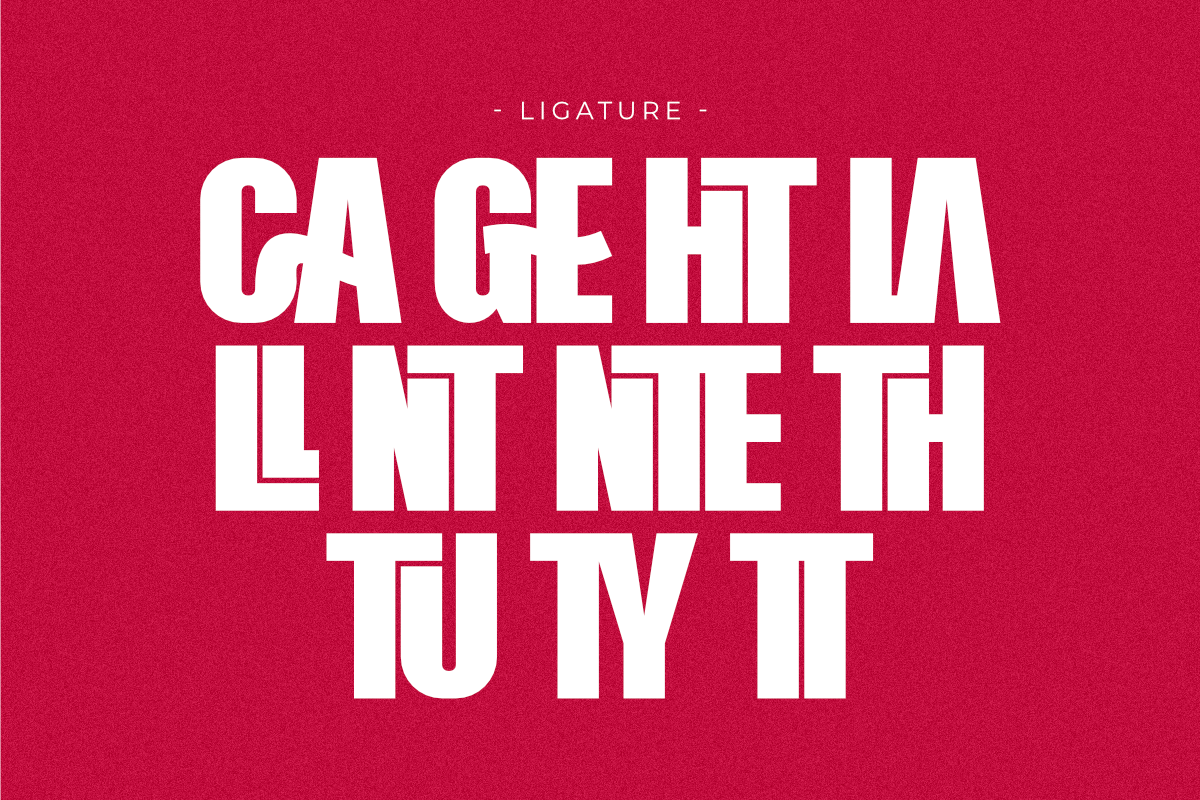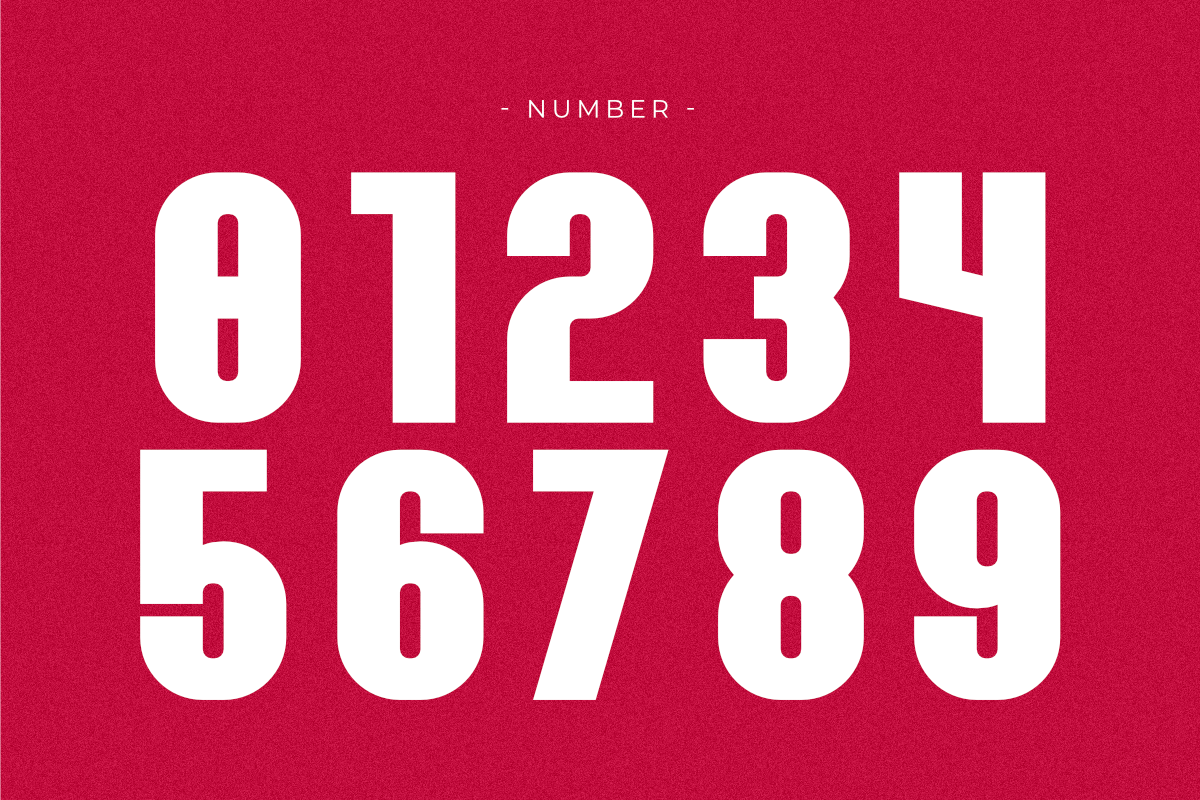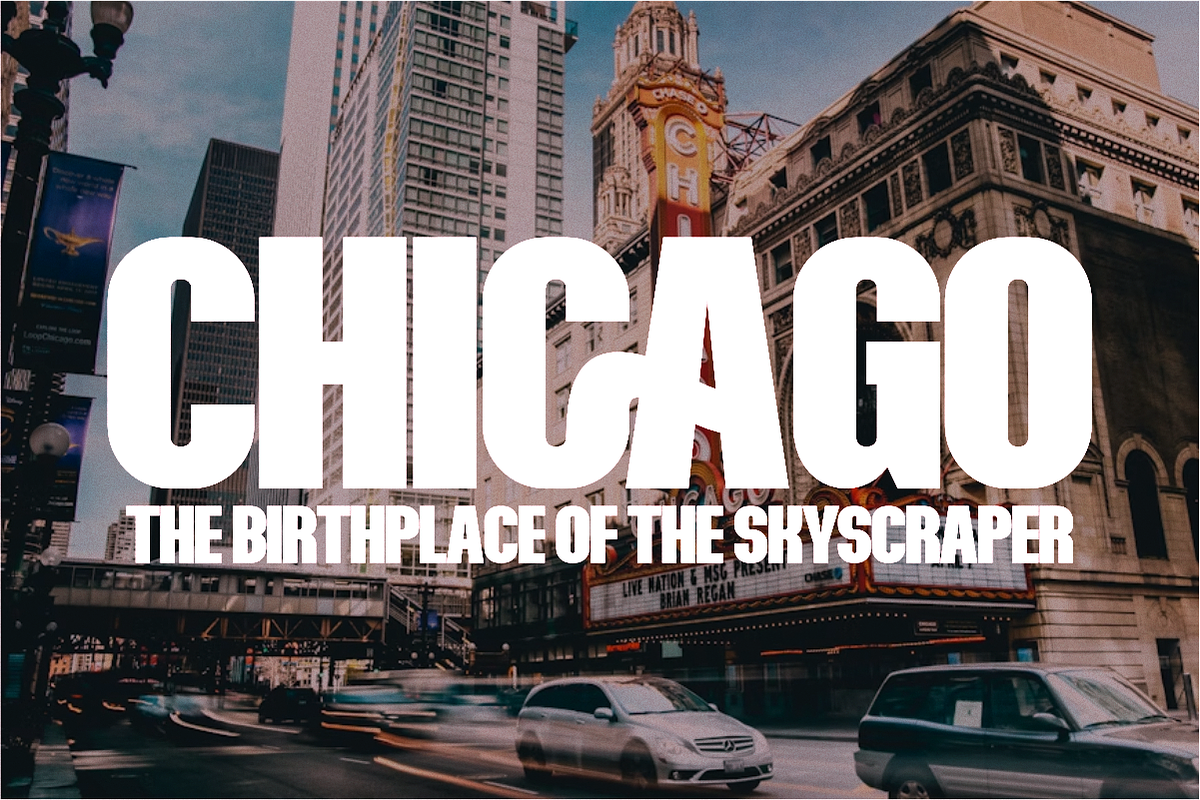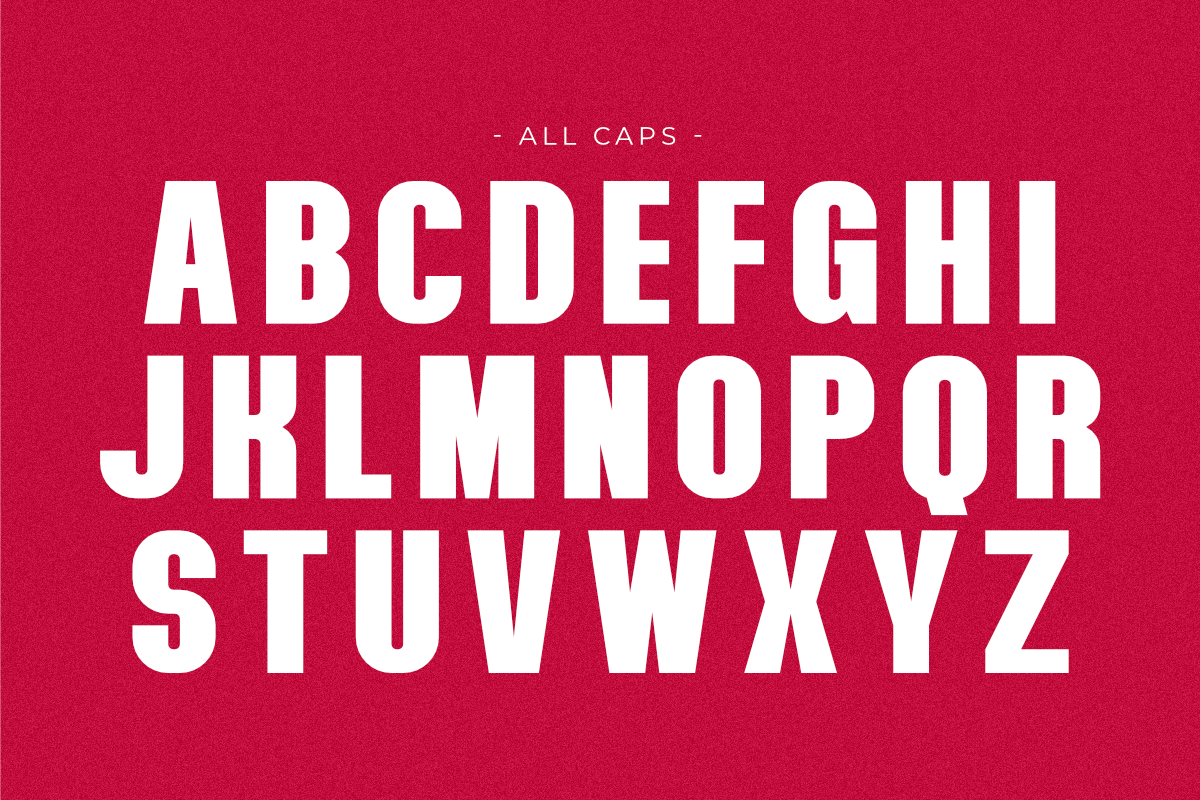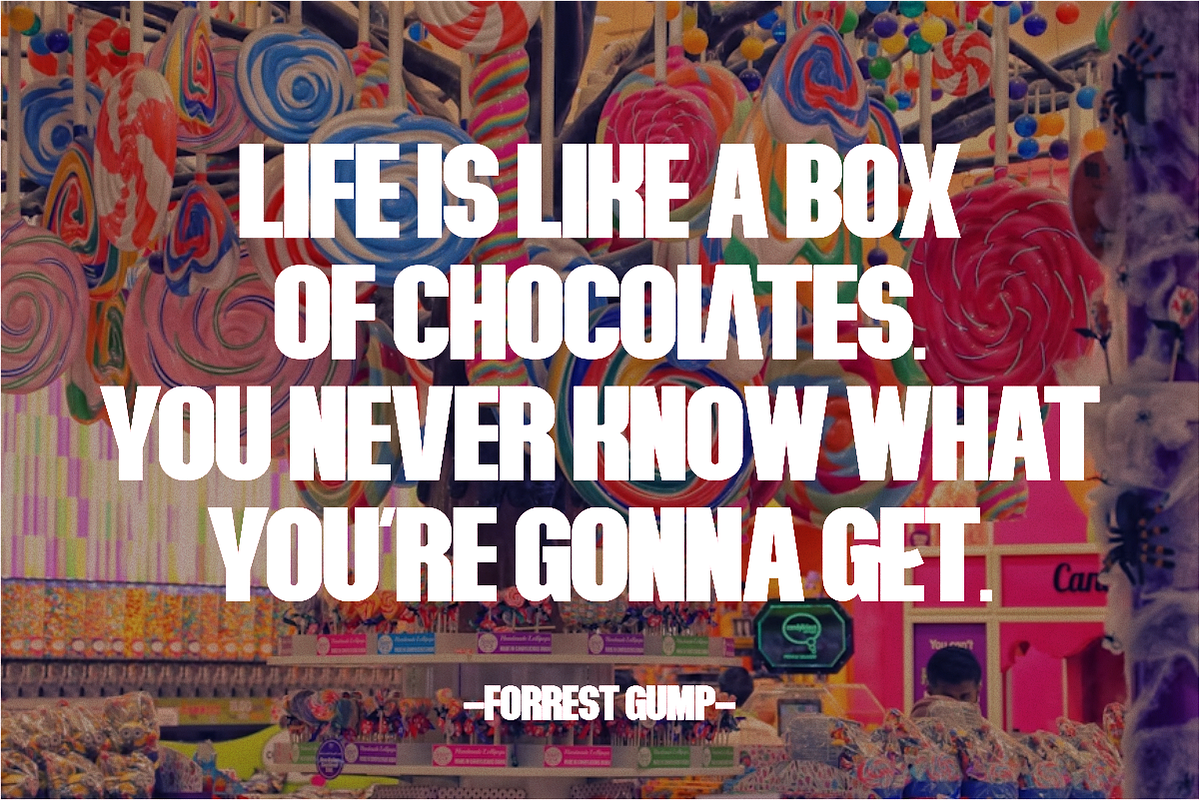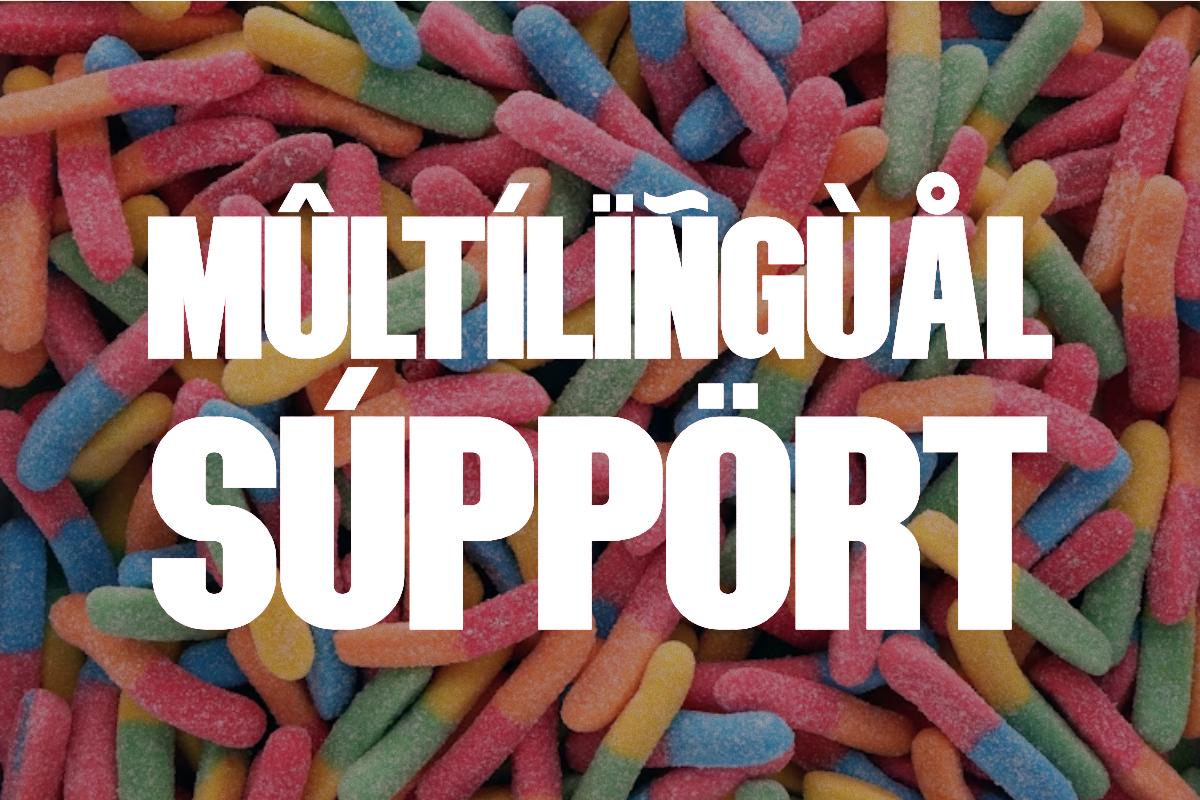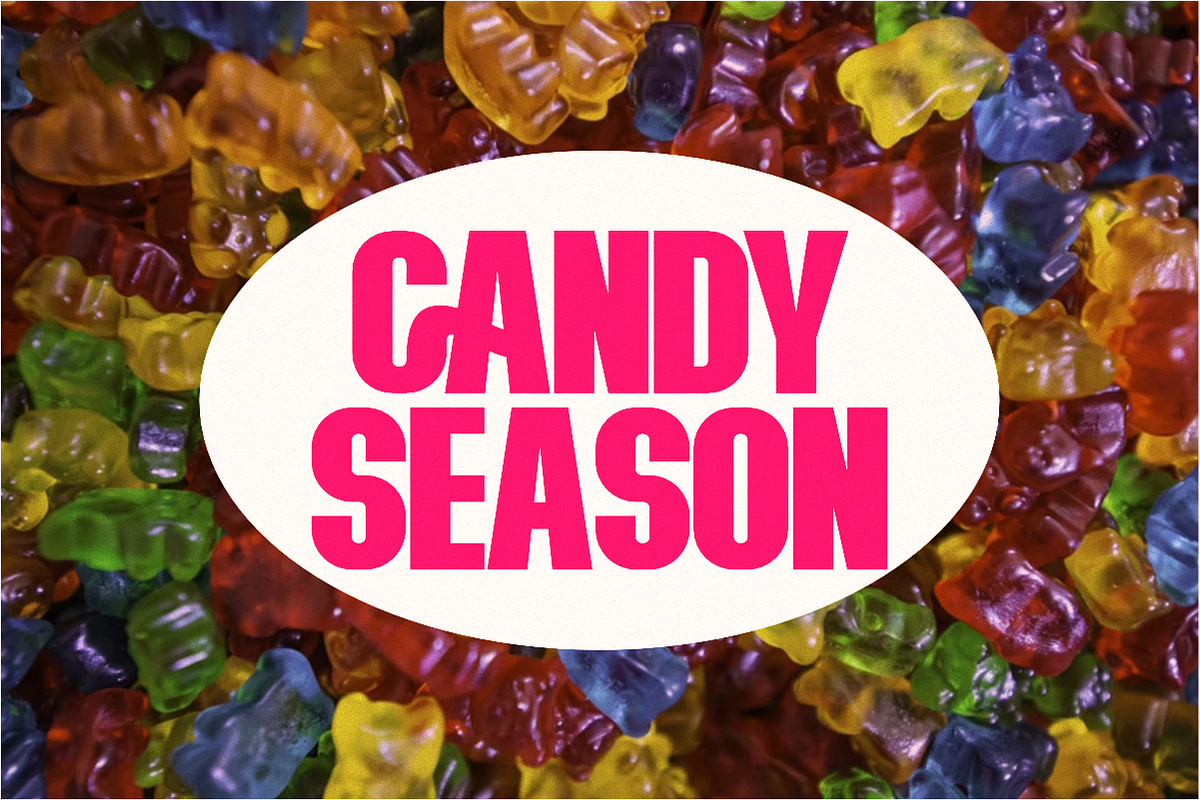
Candy Hunter - Ultra Condensed Sans
Candy Hunter is a bold and ultra-condensed sans serif font that perfectly captures the playful energy of candy with a striking, modern aesthetic. Its tall, clean, and tightly-spaced letterforms create a powerful visual impact, making it ideal for both fun and professional designs. This versatile display font is excellent for Halloween-themed projects, candy packaging, event posters, children's products, and any branding that needs to be memorable and eye-catching.